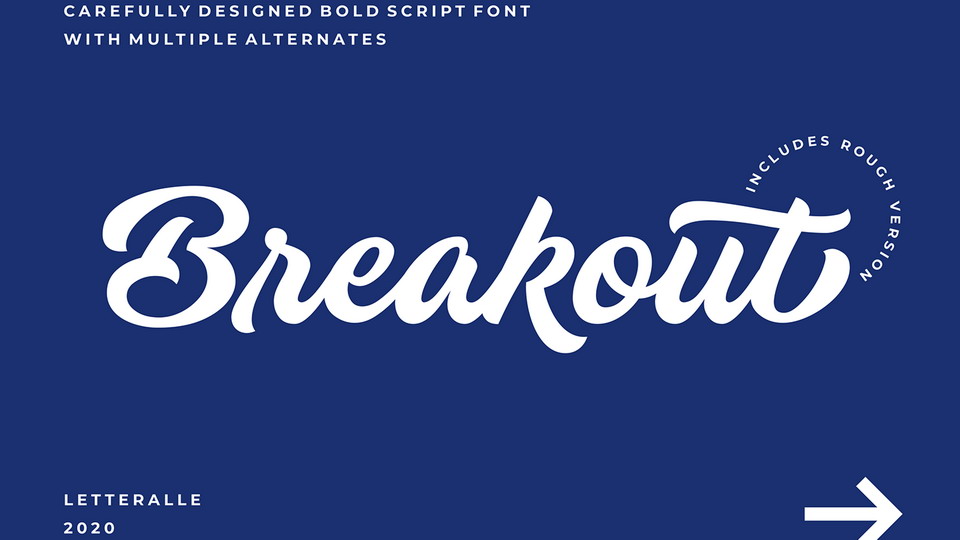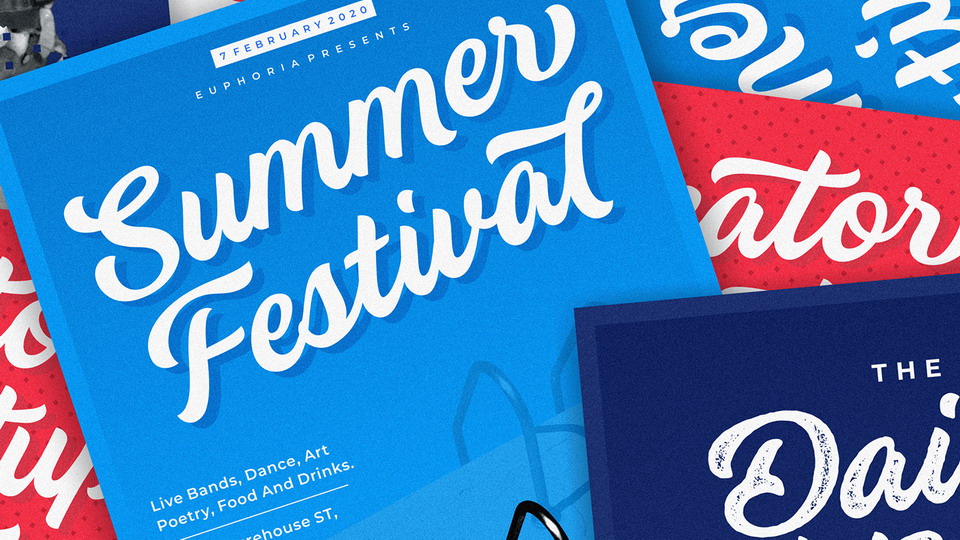
Breakout Script
Breakout is a carefully hand-lettered bold script font. Full version of Breakout comes in two styles: Regular and Rough Version. Breakout has a lots alternative of each letter to make it look unique and attractive. It is can give a solid and standout impression.
Breakout is suitable for logotype, digital printing, packaging, T-shirt, social media post, Merchandise, and many more.